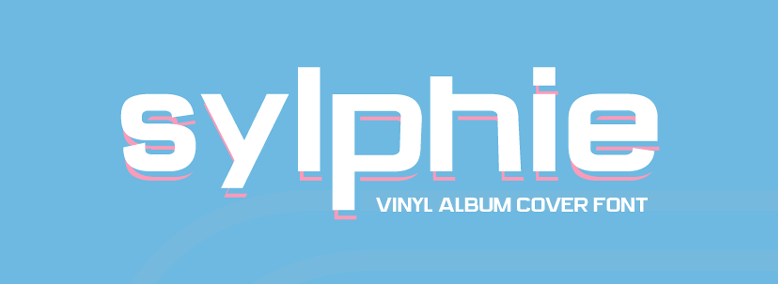
Preview and download Sylphie Font. Created by MuraKnockout Media + Design in Basic Sans serif styles with Demo license.
Like us on Facebook and stay updated! http://facebook.com/muraknockout Check out sweet gear that we offer on Society6! http://society6.com/mkmediadesign ----------------------- Purchase the complete font and license on Sellfy: https://sellfy.com/p/NQMq/ Sylphie was created to have a look similar to classic vinyl record album cover titling. This style is timeless, and can be used for both a classic or futuristic look and feel. The demo includes uppercase and lowercase letters, and numbers. Check out samples and more on our website: http://muraknockout.com/sylphie-vinyl-album-cover-font/ ----------------------- Check out all of our fonts, free and premium, at: http://muraknockout.com ----------------------- Please DO NOT download this font and redistribute it on another website! For a full licensing agreement please check out: http://muraknockout.com/licensing |